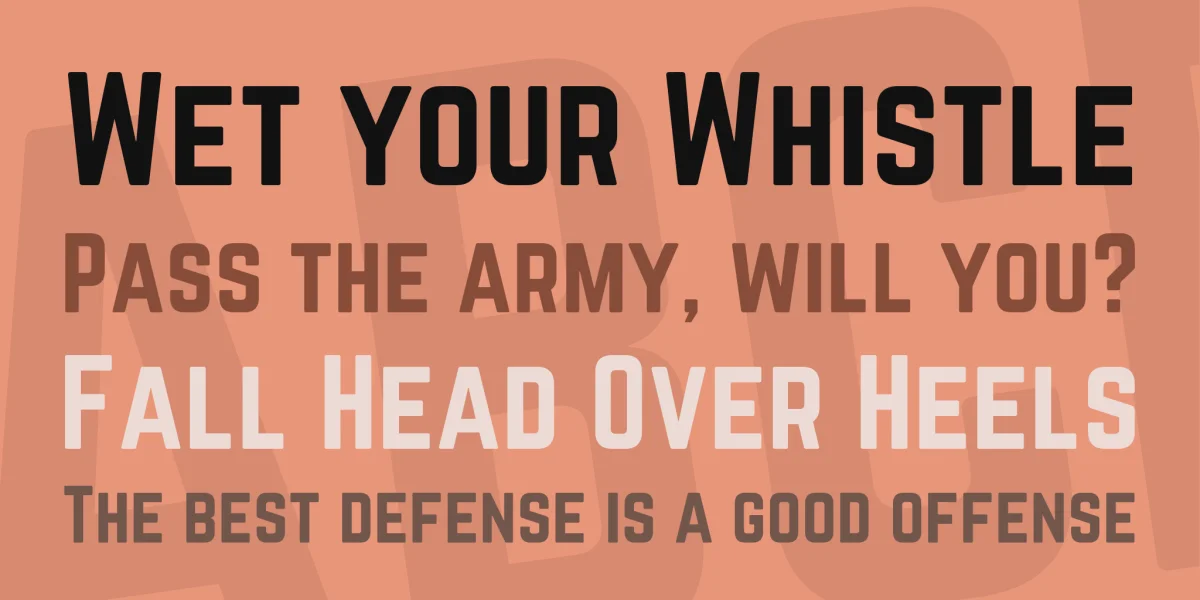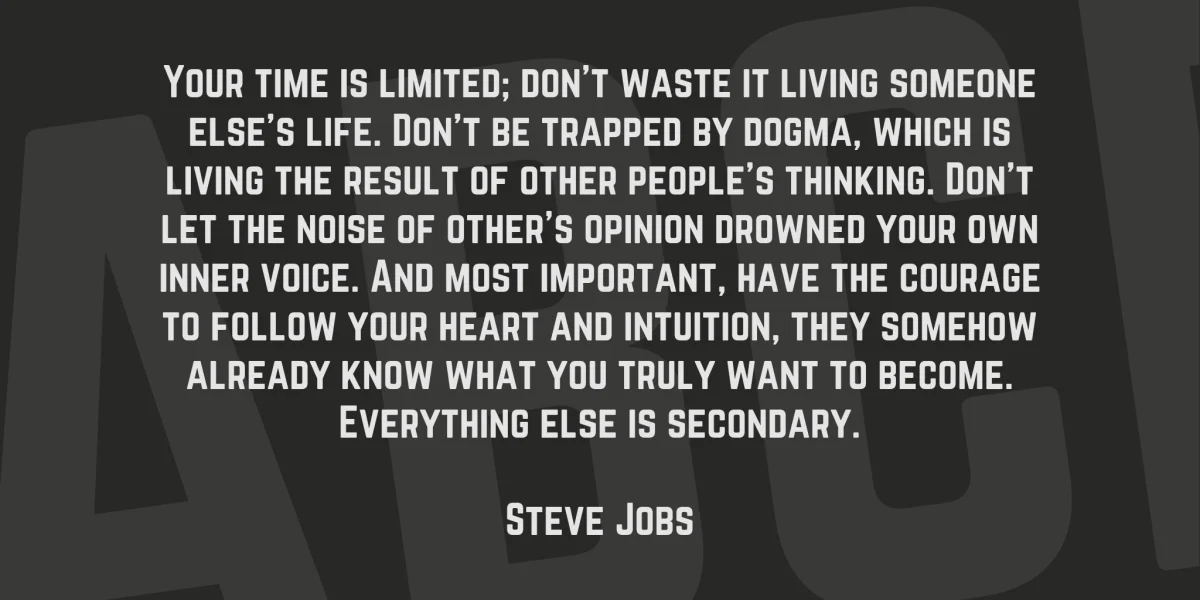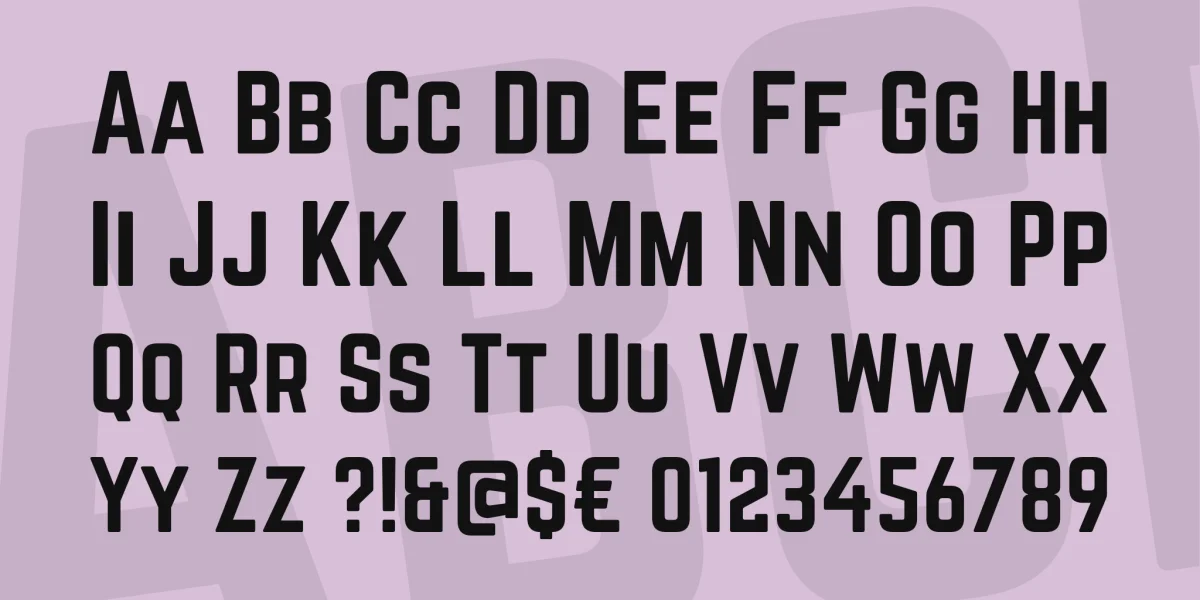
A condensed geometric sans serif with uppercase, small caps, numbers & an assortment of symbols. As payment, please consider donating to the International Justice Mission.